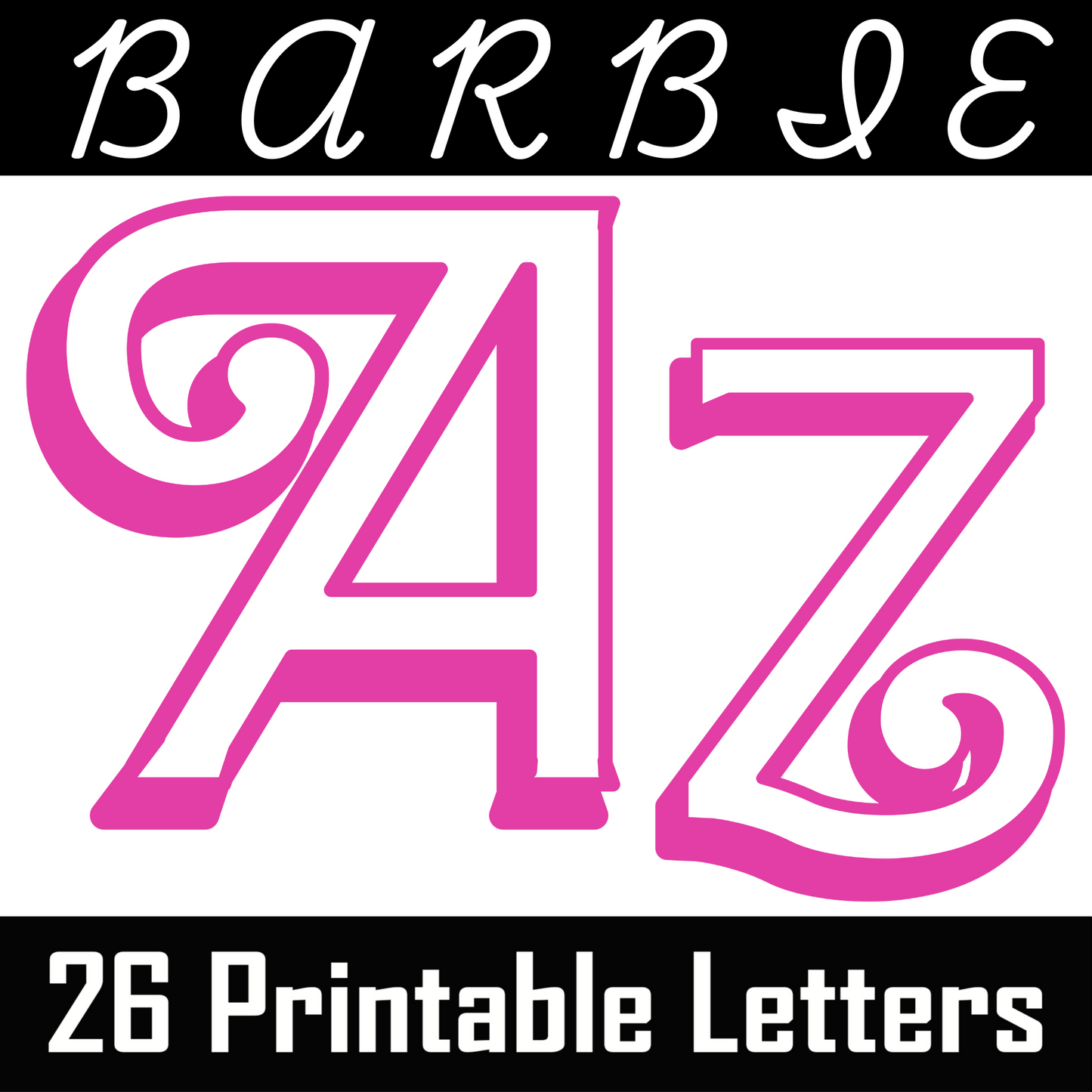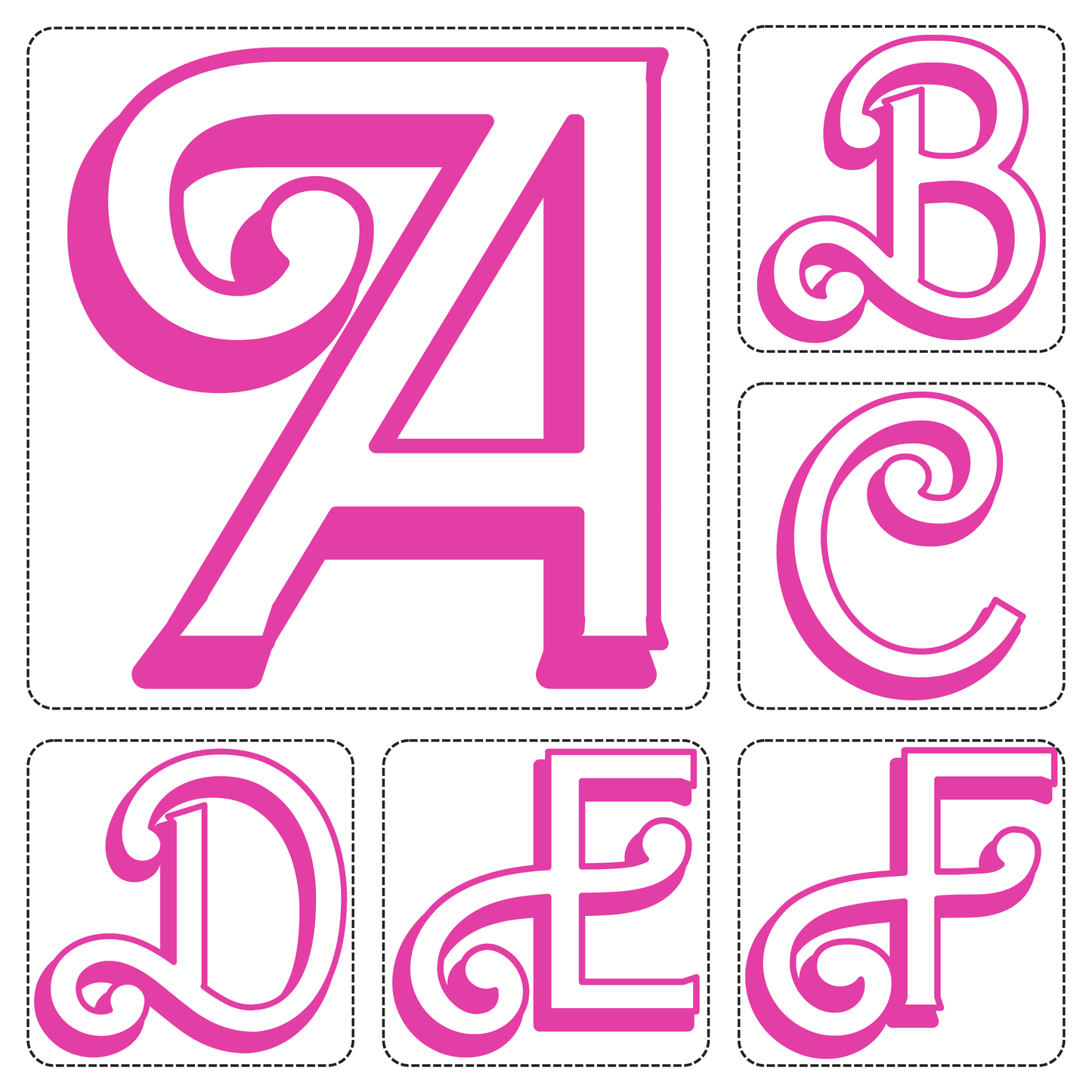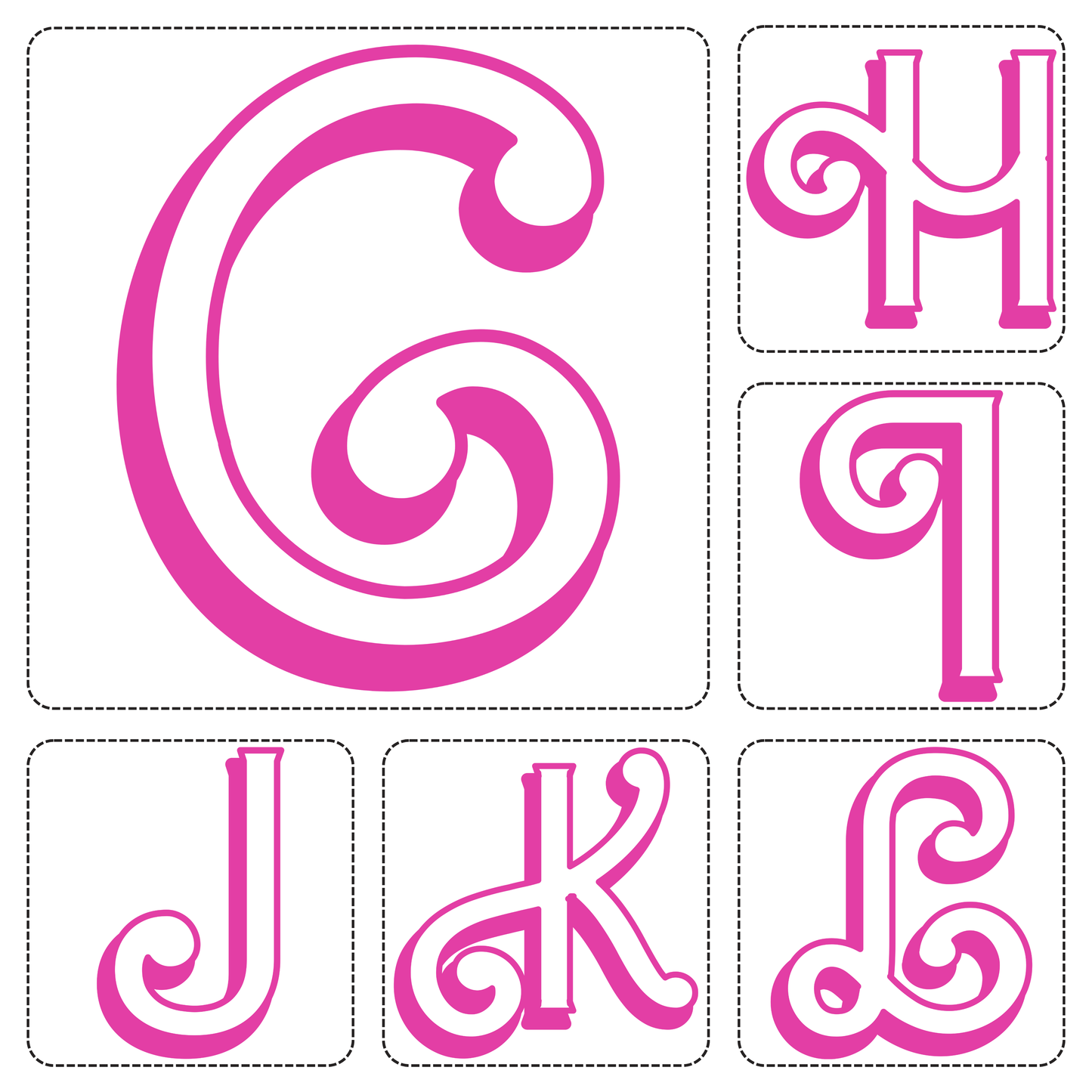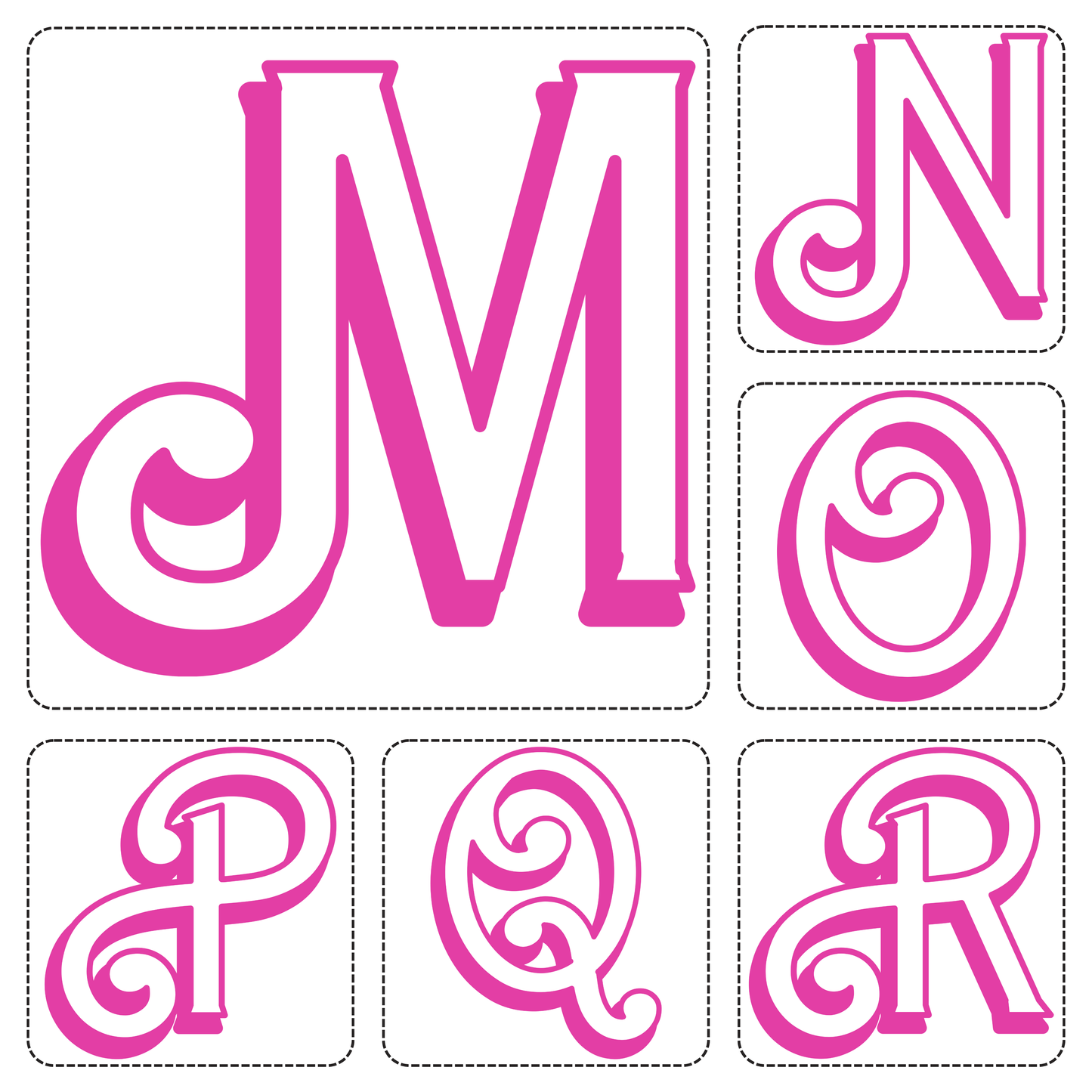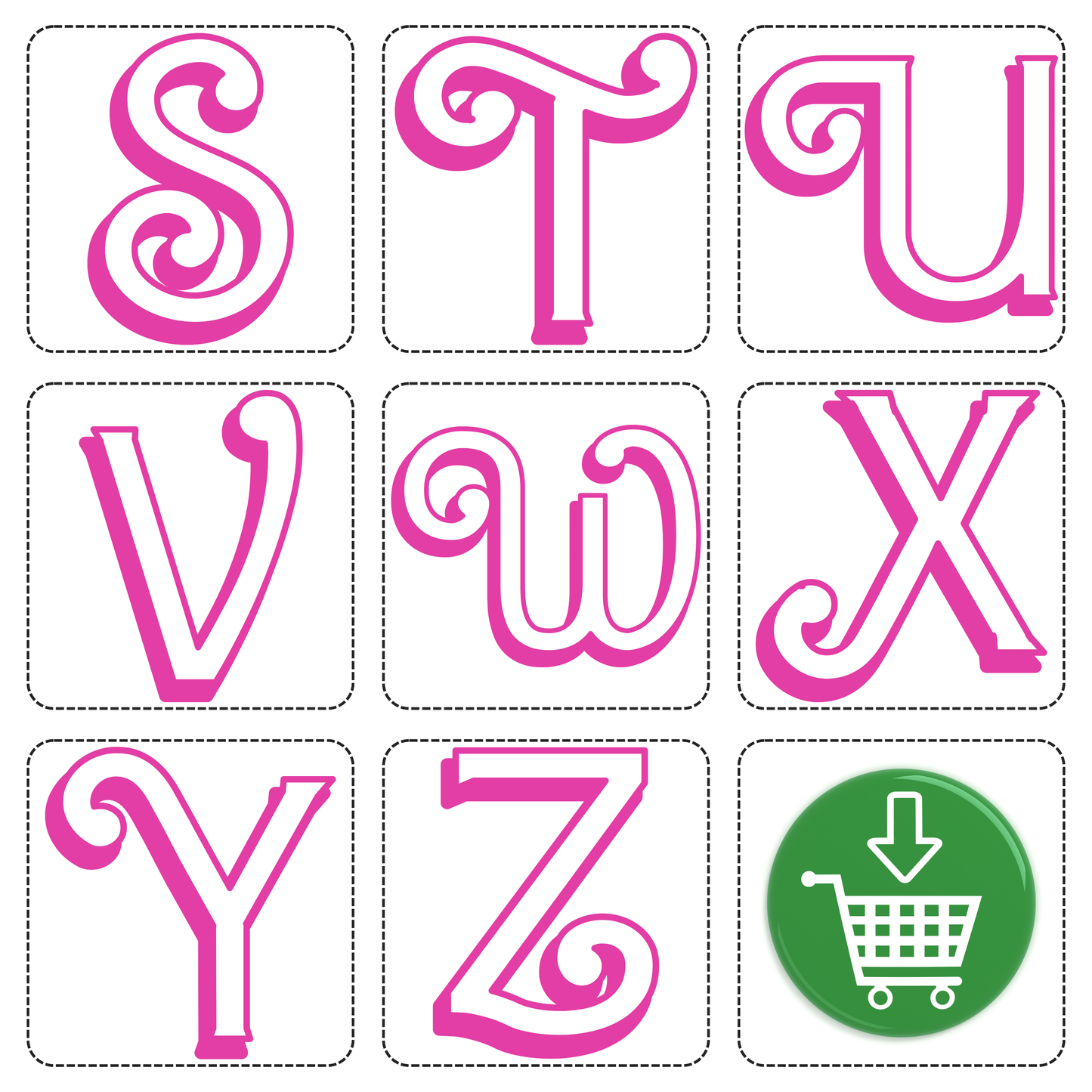
Barbie Alphabet Letters A–Z
Add sparkle and style to your projects with this full set of Barbie-inspired alphabet letters! Each letter from A to Z is designed in a bold pink font with playful swirls and a glamorous flair—perfect for birthday banners, classroom decor, homeschool printables, and fashion-themed crafts.
👛 Perfect For
• Barbie-themed birthday parties
• Classroom bulletin boards
• Alphabet flashcards
• Scrapbooking & DIY crafts
• Homeschool activities
• Fashion-themed worksheets